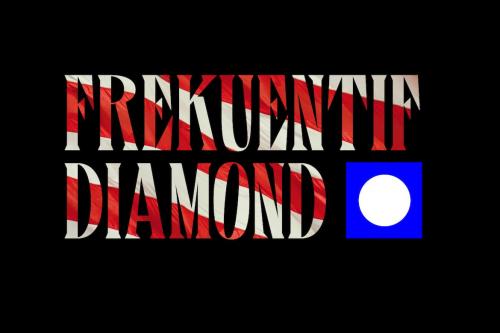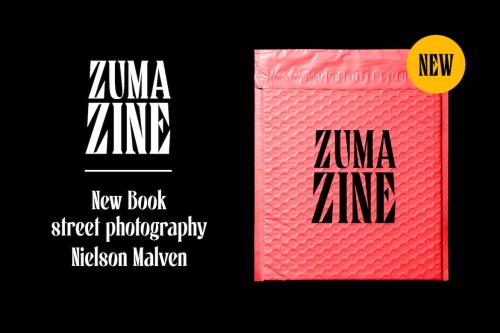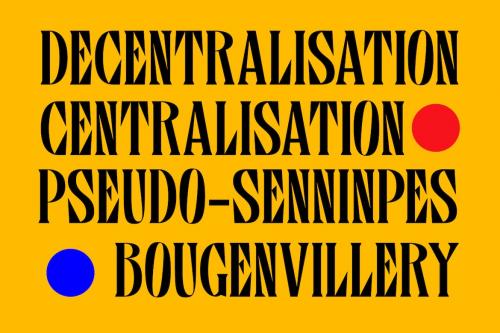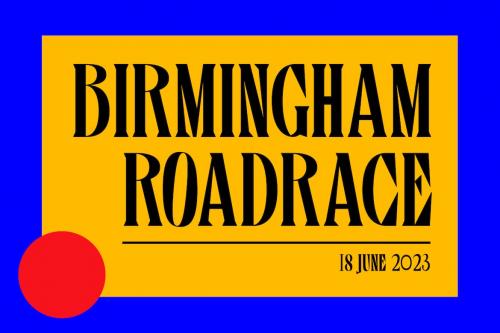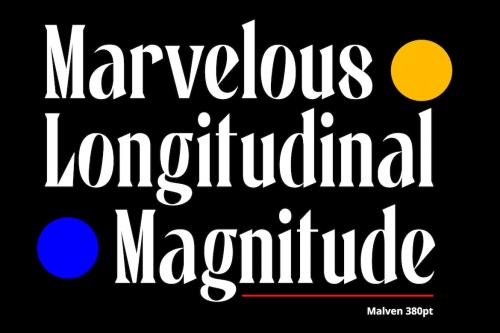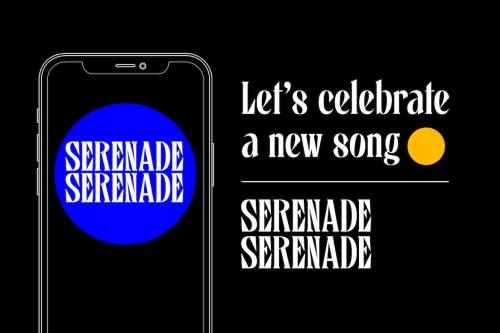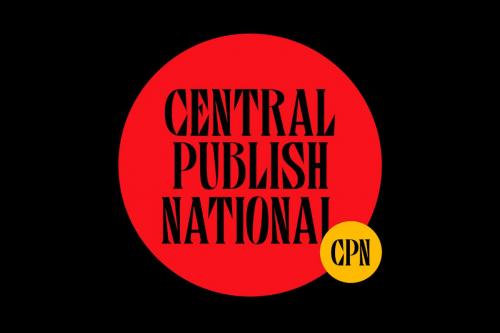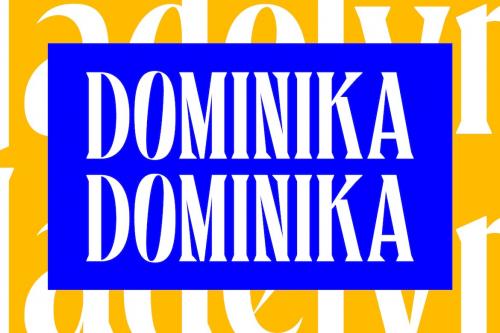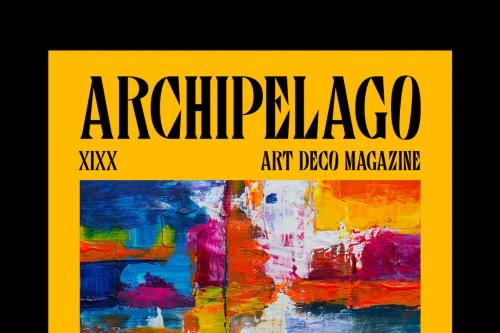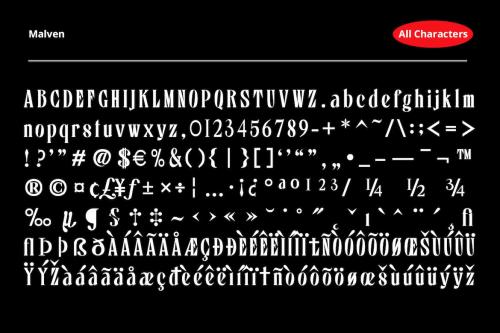
马拉文字体
Malven Font
Malven is a modern serif features thin stroke, low-contrast modulation, with small serif that make it elegant and classy. It can be used to create almost all types of design projects like print materials. Just use your imagination and your project will become more alive and look great than ever with this typeface. You want to make a greeting card or a package design, or even a brand identity, craft design, any DIY project, book title, wedding font, pop vintage design, retro design or any purpose to make your art / design project look pretty and trendy? Feel free to play with this typeface!
Malven is a modern serif features thin stroke, low-contrast modulation, with small serif that make it elegant and classy. It can be used to create almost all types of design projects like print materials. Just use your imagination and your project will become more alive and look great than ever with this typeface.
You want to make a greeting card or a package design, or even a brand identity, craft design, any DIY project, book title, wedding font, pop vintage design, retro design or any purpose to make your art / design project look pretty and trendy? Feel free to play with this typeface!